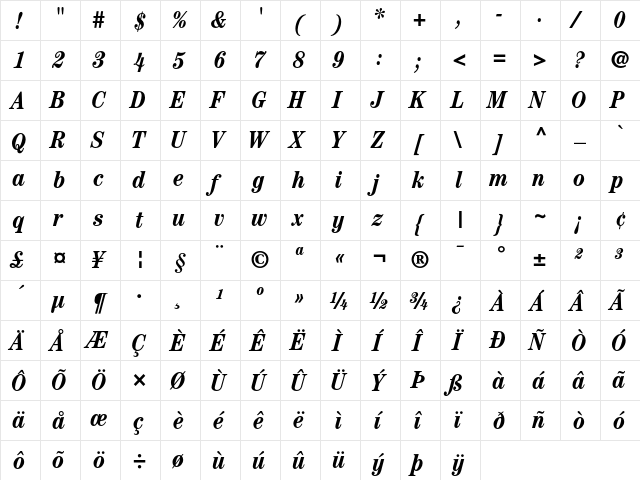
ITC Century Bold Condensed Italic Font Preview
Design Context for ITC Century Typeface
ITC Century is a composed and adaptable typeface that performs quietly and consistently across a wide range of design contexts. Its italic angle brings a sense of urgency and motion to the letterforms. Its bold stroke weight gives it real presence on the page. Its narrow stance lets it pack a punch even in space-constrained designs.
Pro Tip: Try ITC Century for annotation and caption copy alongside an upright companion — the contrast in angle creates a dynamic but ordered typographic system.